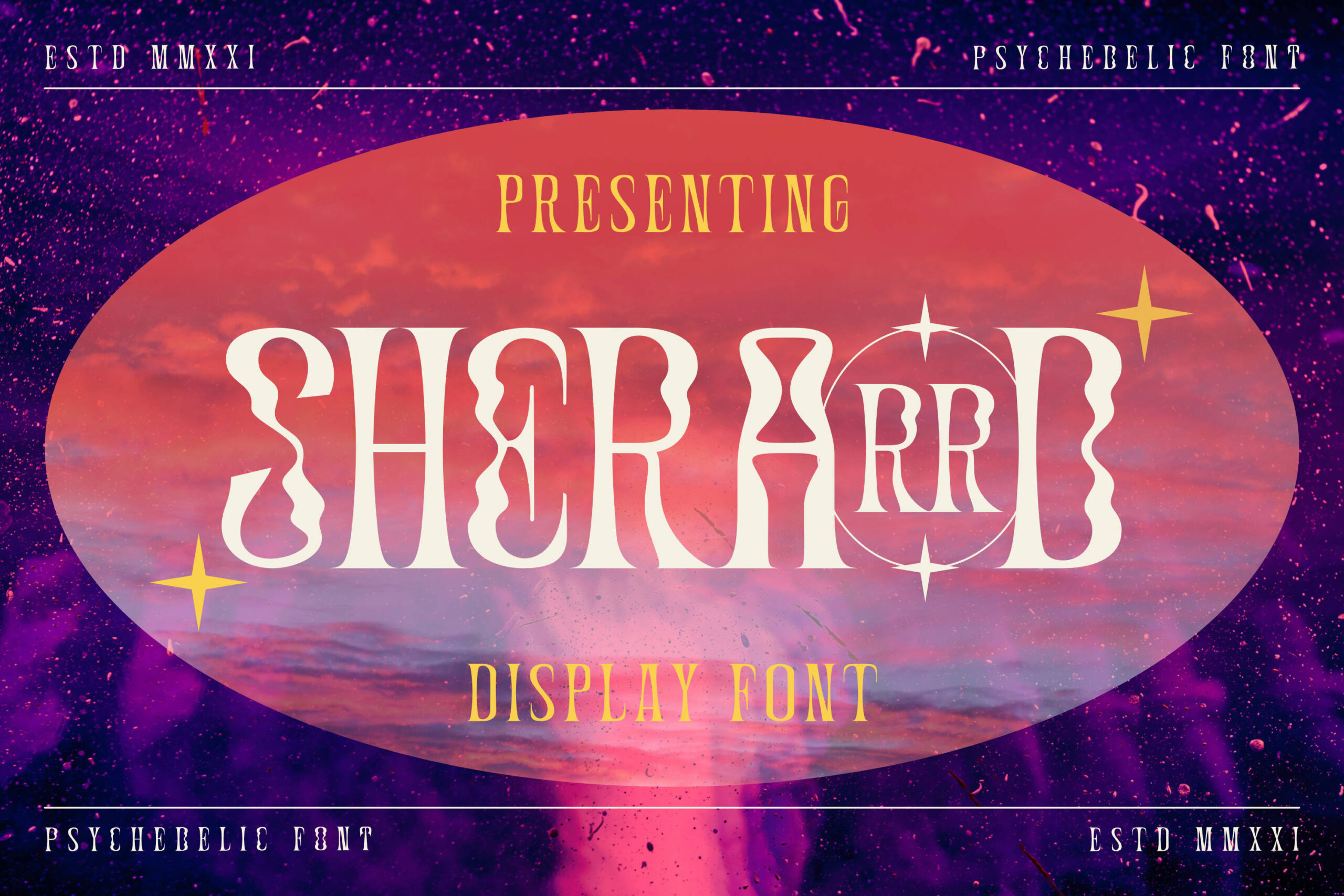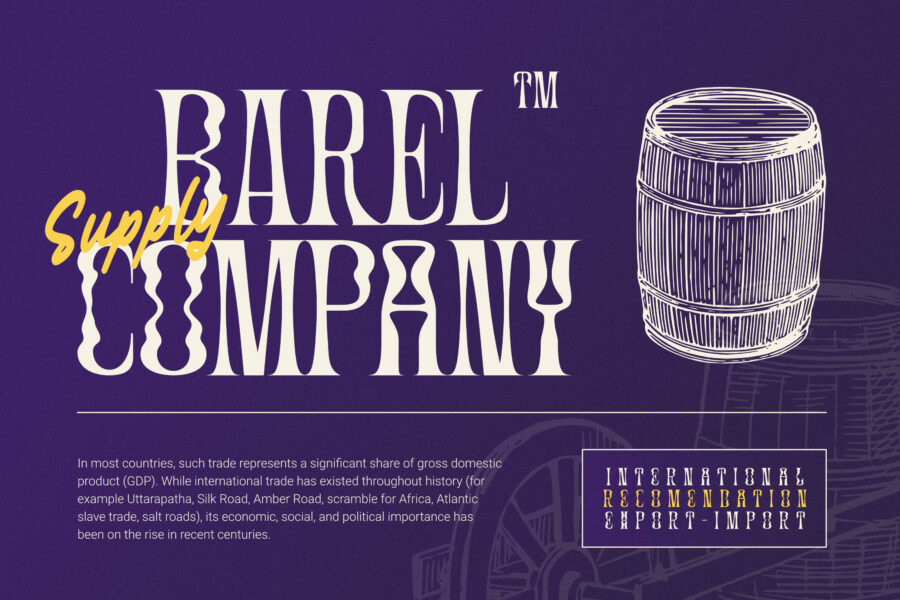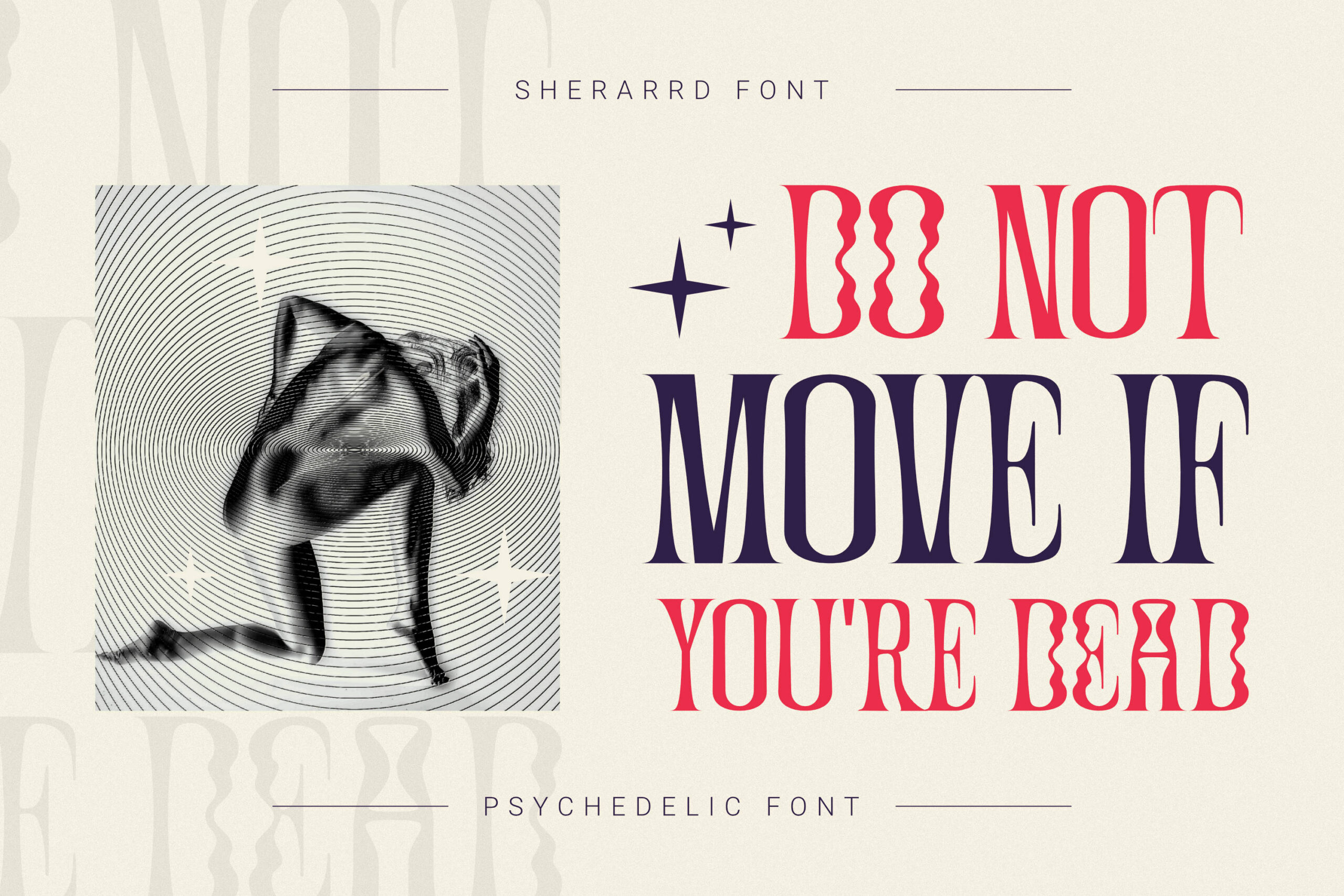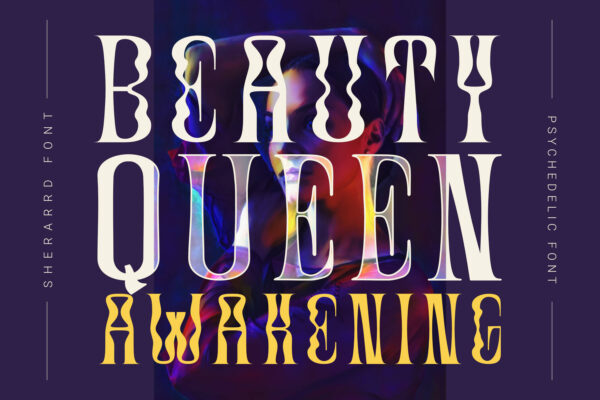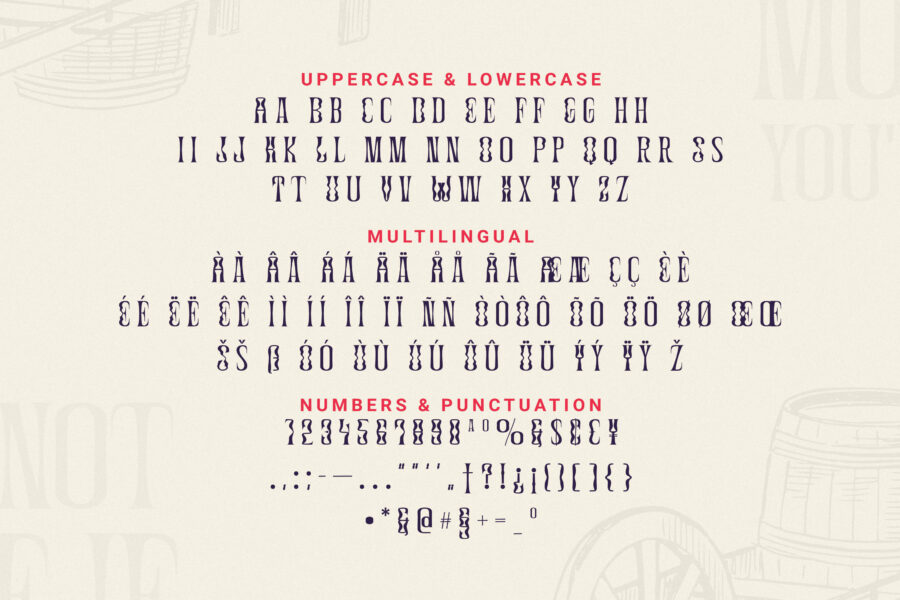
Sherarrd is a psychedelic display font that captures the free-spirited energy of the 60s and 70s with a bold modern twist. With its undulating letterforms, high contrast, and whimsical flair, Sherarrd instantly draws attention and infuses any design with an otherworldly retro vibe. Perfect for posters, music festival branding, fashion editorials, or art projects, this font celebrates expression, movement, and visual rhythm in every character.
Designed to support multilingual characters, symbols, and a full punctuation set, Sherarrd is as functional as it is iconic. Whether used in vibrant color palettes or in stark monochrome layouts, this font brings a distinct identity to any creative work. It’s a typeface that thrives in bold concepts—where visual storytelling meets imaginative typography.